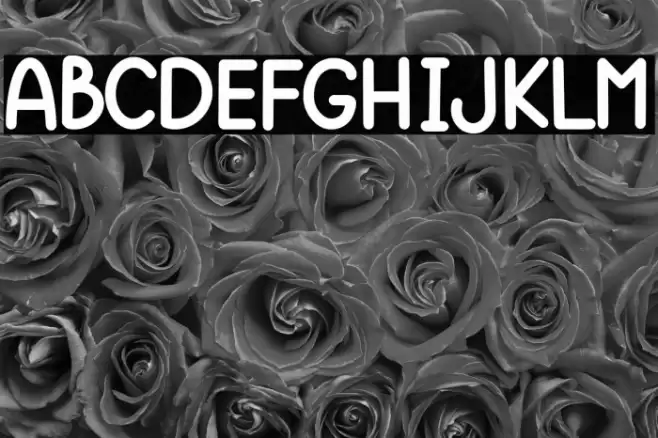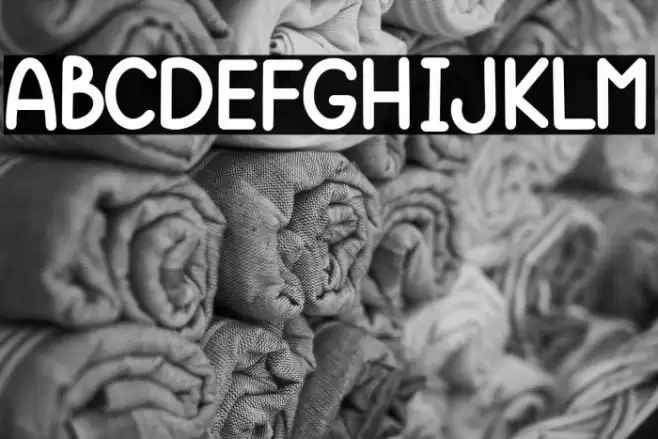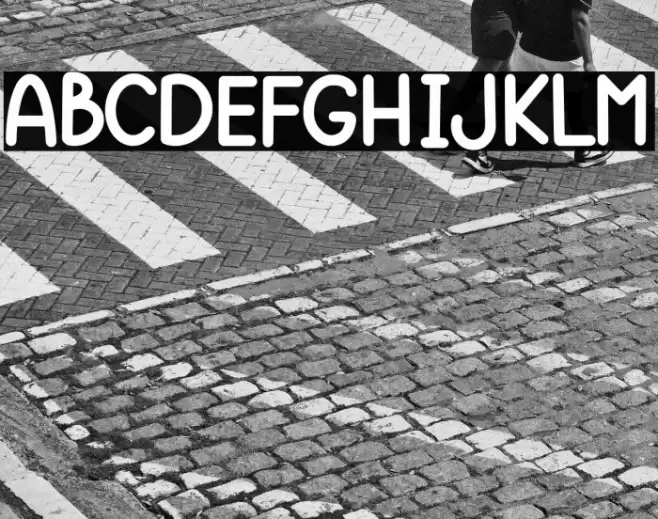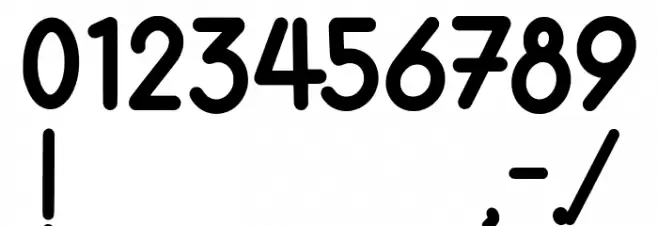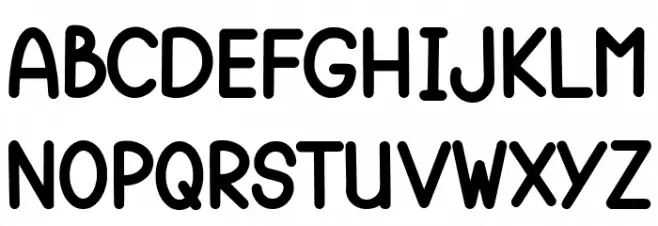
Gomuno Basic Font
Gomuno Basic Description
This font features a playful and rounded style, characterized by its smooth curves and consistent stroke width. The letters are bold and slightly condensed, giving it a friendly and approachable appearance. The uppercase and lowercase letters maintain a uniform height, enhancing readability. Numbers and special characters are designed with the same rounded aesthetic, ensuring a cohesive look across all characters. The font's simplicity and clarity make it suitable for a variety of applications, from children's books to casual branding projects. Its informal style adds a touch of whimsy without sacrificing legibility.
A playful, rounded font with consistent stroke width and a friendly appearance from bubble letter fonts.
- Font: Gomuno Basic
- Proposed Projects: Ideal for children's books, casual branding, greeting cards, and playful posters.
- Width: Condensed
- Overall Style: Playful